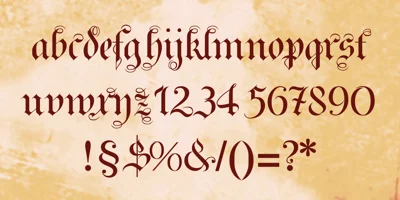
Monkeytails Font
Monkeytails Font is perfect for various design applications including children's book covers, jungle-themed party invitations, zoo branding materials, playful logo designs, kids' educational apps, animal conservation campaigns, fun restaurant menus, cartoon character designs, adventure playground signage, and whimsical typography displays.
What makes Monkeytails Font so exciting is its playful and adventurous character design that captures the mischievous spirit of jungle adventures through typography. The font features curvy, bouncy letterforms with organic swirls and playful details that evoke the swinging movements of monkeys through tropical trees. Its energetic appearance and fun-loving personality make it ideal for projects requiring a jungle-inspired, adventurous aesthetic that appeals to children and families seeking exciting, memorable brand experiences.
Monkeytails Font comes in multiple font families including Regular, Bold, Light, Outline, and Decorative variations, providing designers with comprehensive typographic flexibility for diverse jungle-themed projects and playful branding applications.
This delightful typeface stands out in the competitive font market due to its exceptional jungle charm and adventurous spirit. Whether you're creating children's entertainment materials, zoo educational displays, or jungle-themed party decorations, Monkeytails Font delivers the perfect balance of playfulness and readability. The font's creatively crafted letterforms ensure excellent performance across both digital and print media, making it an essential addition to any designer's adventure typography collection. Its unique character set supports various design contexts while maintaining consistent jungle quality throughout different applications and family-friendly creative projects.